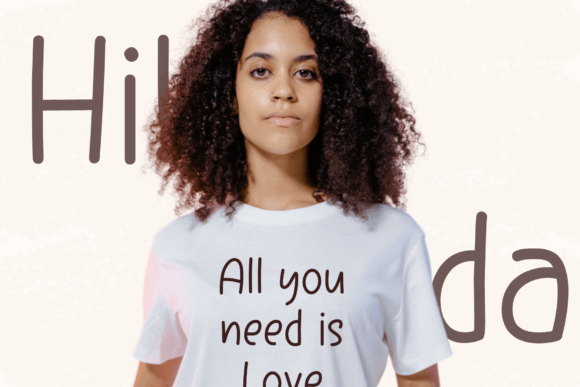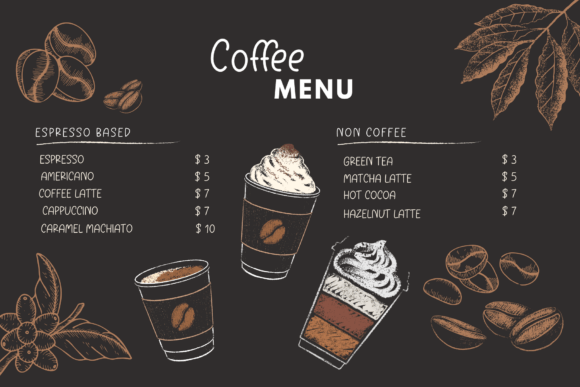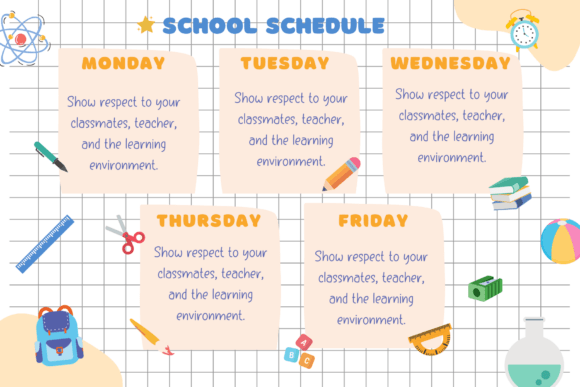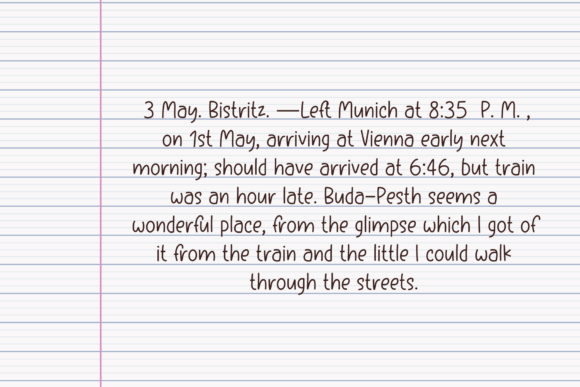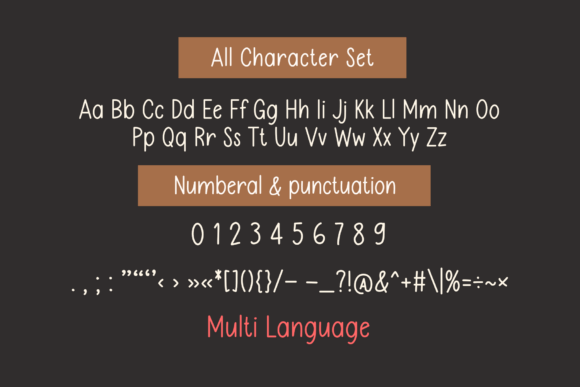
Introducing Espresso Font: The Perfect Handwritten Touch for Your Designs
Are you tired of using the same old fonts for your designs? Do you want to add a touch of playfulness and authenticity to your projects? Look no further than Espresso Font, a beautiful handwritten font that’s perfect for a wide range of applications. In this article, we’ll dive into the world of Espresso Font and explore its features, benefits, and uses.
What is Espresso Font?
Espresso Font is a unique and charming handwritten font that’s designed to bring a personal touch to your designs. With its playful and authentic feel, it’s perfect for creatives, designers, and crafters who want to add a human touch to their projects. Whether you’re working on a blog post, logo, branding, ad, invitation, greeting card, planner, photo album, or decoration, Espresso Font is the perfect choice.
Features of Espresso Font
So, what makes Espresso Font so special? Here are just a few of its key features:
- Handwritten style: Espresso Font is a genuine handwritten font, giving it a personal and authentic feel that’s hard to replicate with generic fonts.
- Playful and elegant: The font has a playful and elegant feel that’s perfect for a wide range of designs, from whimsical to sophisticated.
- Versatile: Espresso Font is incredibly versatile, making it suitable for use in a variety of contexts, from digital designs to print materials.
- Easy to read: Despite its handwritten style, Espresso Font is easy to read, making it perfect for body text, headings, and titles.
Benefits of Using Espresso Font
So, why should you choose Espresso Font for your designs? Here are just a few benefits:
- Adds a personal touch: Espresso Font adds a personal touch to your designs, making them feel more human and relatable.
- Stand out from the crowd: With its unique and playful style, Espresso Font can help your designs stand out from the crowd and grab attention.
- Enhances creativity: The font’s creative and artistic feel can help inspire your designs and bring your ideas to life.
- Perfect for branding: Espresso Font is perfect for branding, as it can help create a consistent and recognizable visual identity for your business or project.
Uses of Espresso Font
So, what can you use Espresso Font for? The possibilities are endless! Here are just a few ideas:
- Blog posts: Add a personal touch to your blog posts and make them more engaging with Espresso Font.
- Logos and branding: Use Espresso Font to create a unique and recognizable logo and visual identity for your business or project.
- Ads and marketing materials: Make your ads and marketing materials stand out with Espresso Font’s playful and attention-grabbing style.
- Invitations and greeting cards: Add a touch of elegance and sophistication to your invitations and greeting cards with Espresso Font.
- Planners and journals: Use Espresso Font to create beautiful and functional planners and journals that inspire creativity and productivity.
- Photo albums and scrapbooking: Add a personal touch to your photo albums and scrapbooking projects with Espresso Font’s charming and whimsical style.
- Decorations and crafts: Use Espresso Font to create beautiful and unique decorations and crafts, such as signs, banners, and gift tags.
In conclusion, Espresso Font is a beautiful and versatile handwritten font that’s perfect for designers, crafters, and creatives who want to add a personal touch to their projects. With its playful and authentic feel, it’s suitable for a wide range of applications, from digital designs to print materials. Whether you’re working on a blog post, logo, branding, ad, invitation, greeting card, planner, photo album, or decoration, Espresso Font is the perfect choice. So why not give it a try and see the amazing results for yourself?